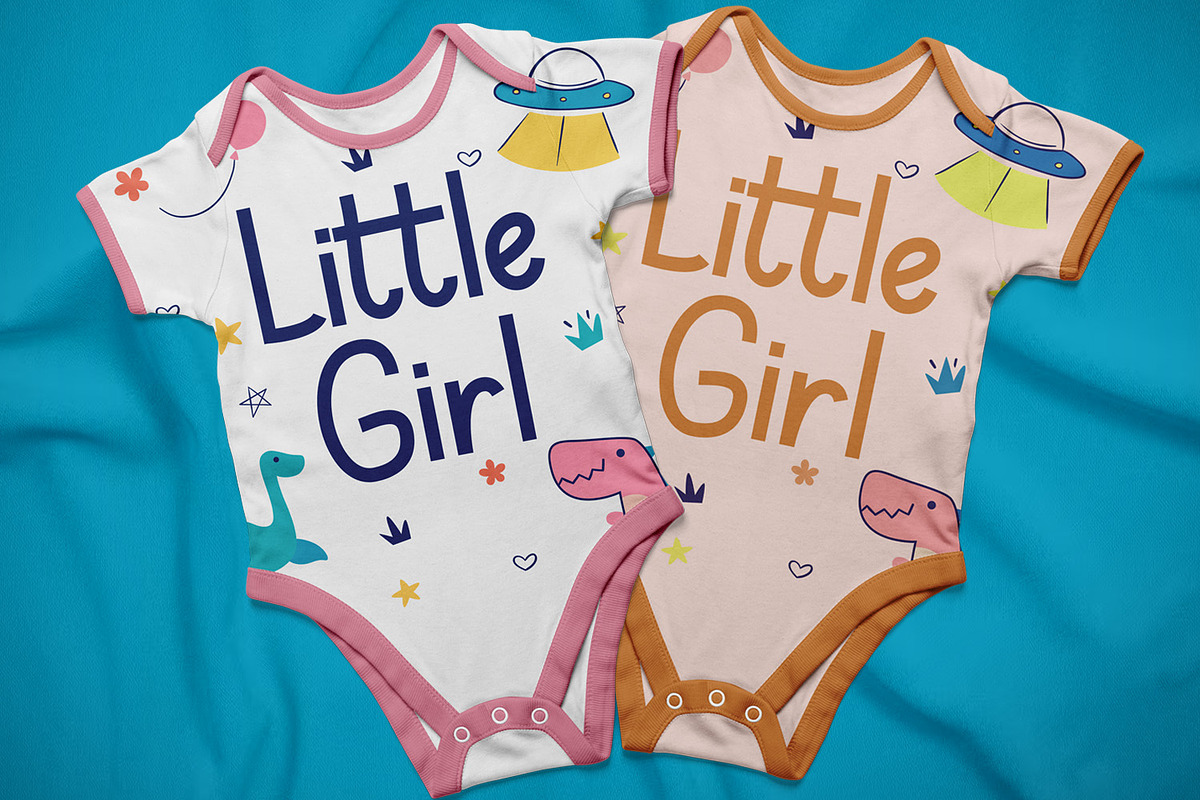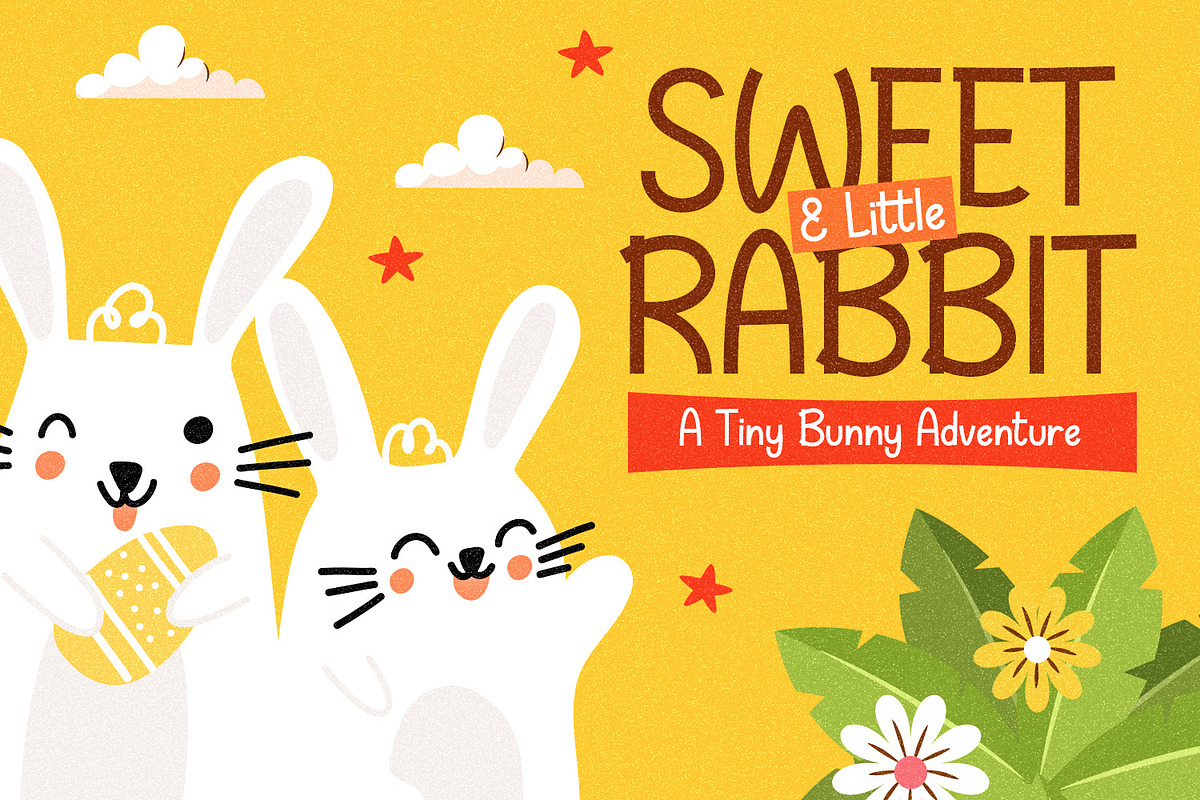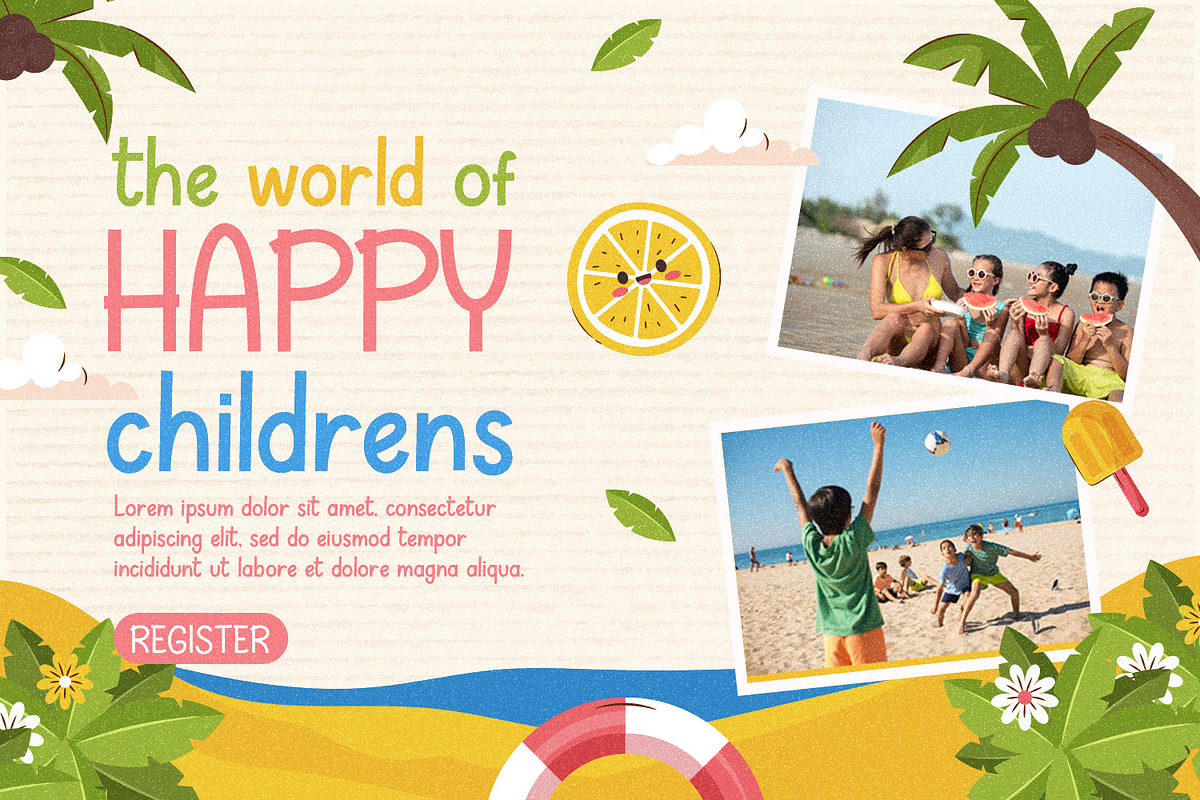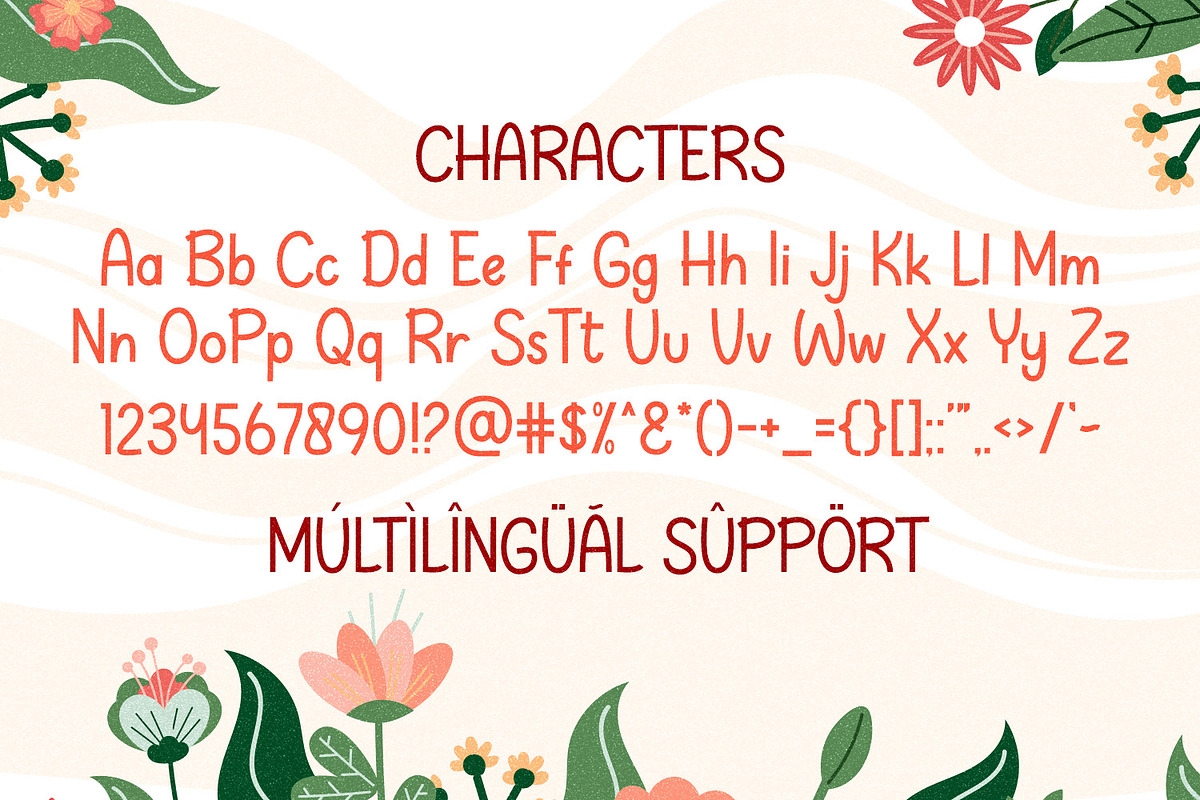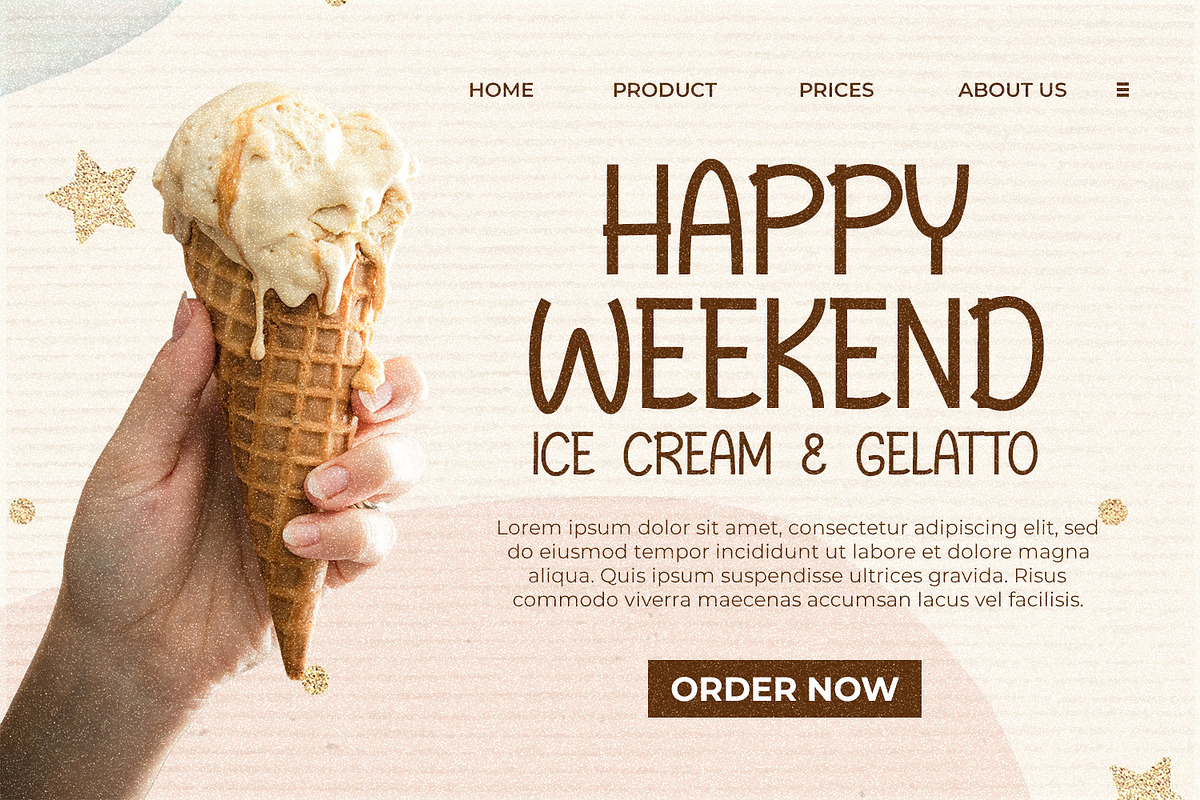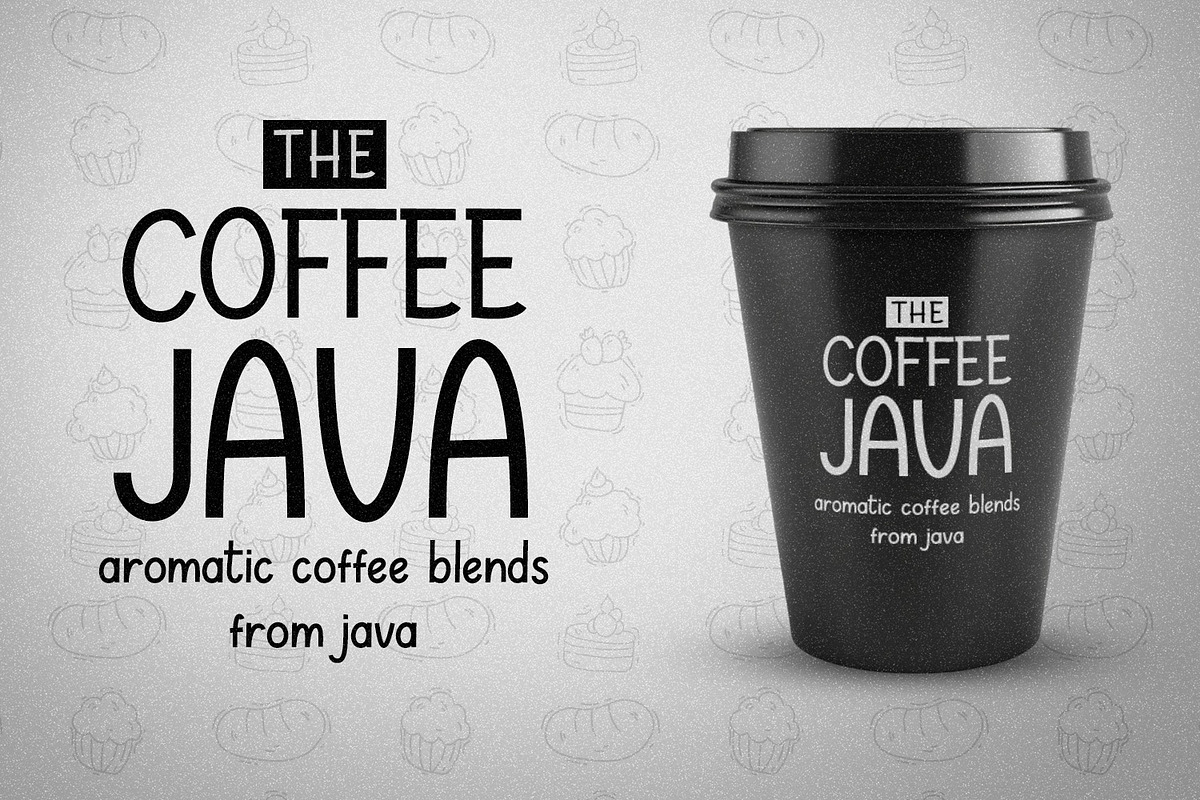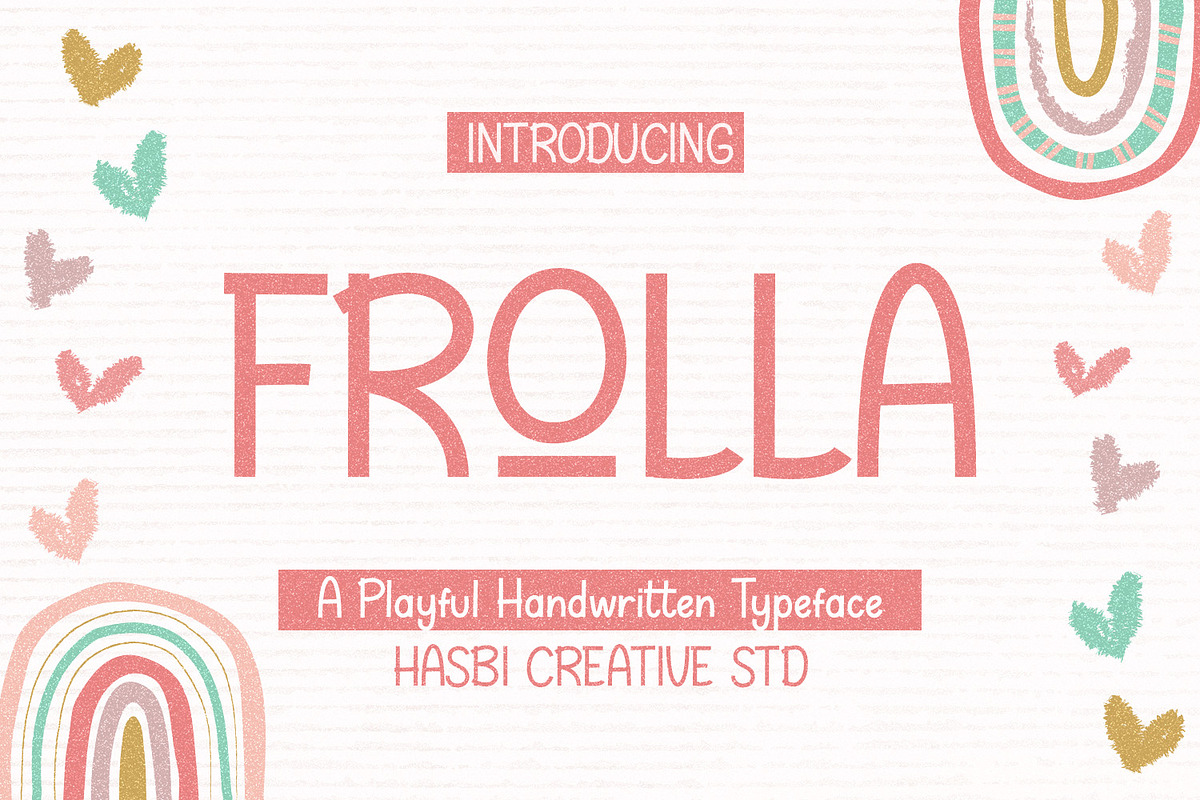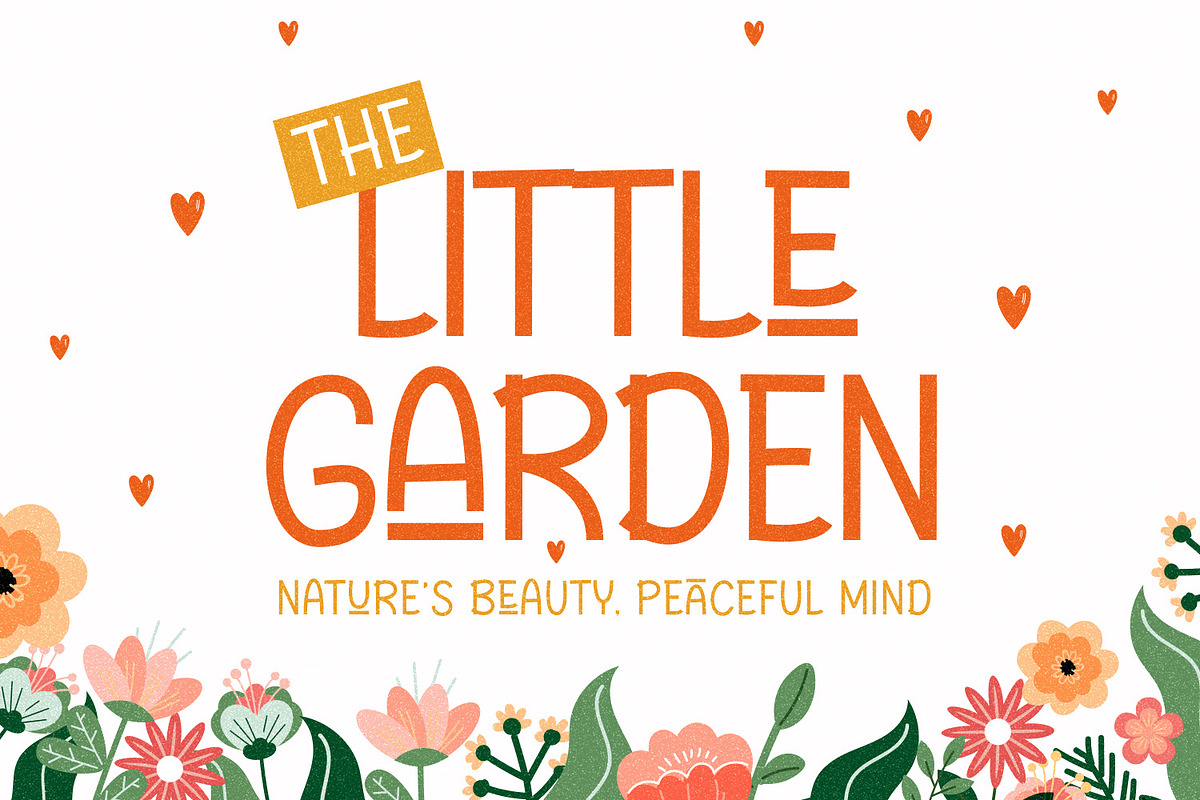
Frolla - Cute Display
Frolla is a charming and playful handwritten font that adds a friendly and approachable vibe to any design project. With its casual yet stylish look, Frolla is perfect for both personal and professional use, making your creations stand out effortlessly.
- Uppercase and lowercase letters with a unique handwritten style.
- Includes numbers, punctuation, and special characters.
- Multilingual support for various languages.
- Greeting cards and invitations
- Branding and logo designs
- Social media posts and quotes
- Posters, product packaging, and DIY projects
Whether you're designing for fun or business, Frolla is the perfect choice to bring creativity and warmth to your projects. Its versatility and playful charm make it a must-have for your font collection.